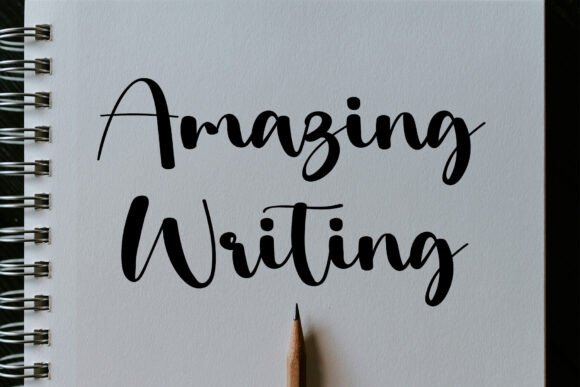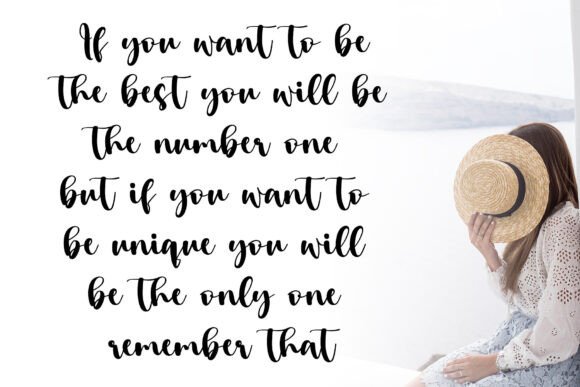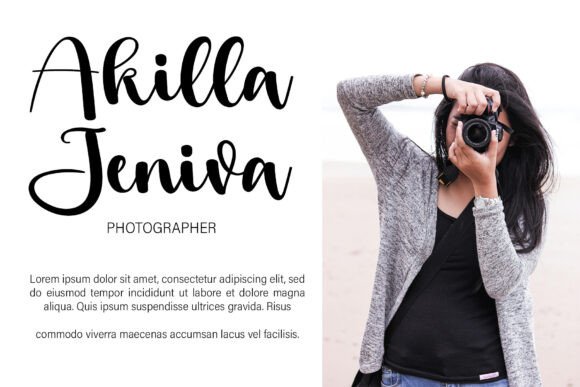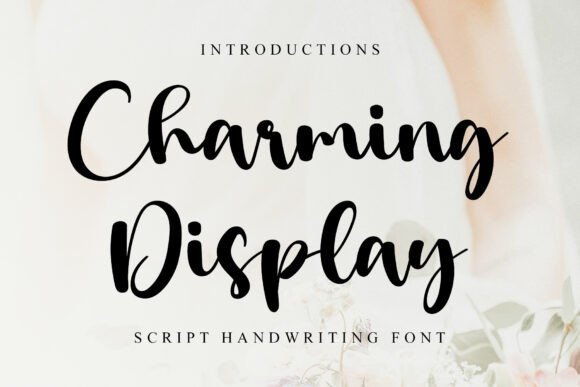
Introduction to Charming Display Font
Charming Display is a magical handwritten font carefully created to give a touch of elegance to your designs.
Whether you’re looking for fonts for Instagram or calligraphy scripts for DIY projects, this font will turn any creative idea into a true piece of art .
Key Features of Charming Display Font
Why Choose Charming Display Font?
Charming Display Font offers exceptional quality and versatility, making it a valuable addition to your design toolkit. Whether you’re creating for personal projects or commercial use, Charming Display Font delivers professional results.